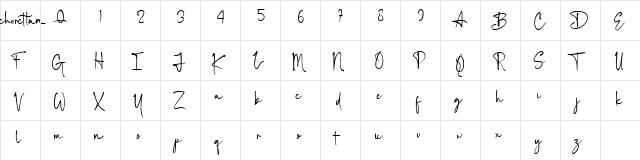
Chorettan Regular
| Foundry | OCSstudio |
| Designer | Oki Candra Setiawan |
Design Context for Chorettan Typeface
Chorettan is a composed and adaptable typeface that performs quietly and consistently across a wide range of design contexts.